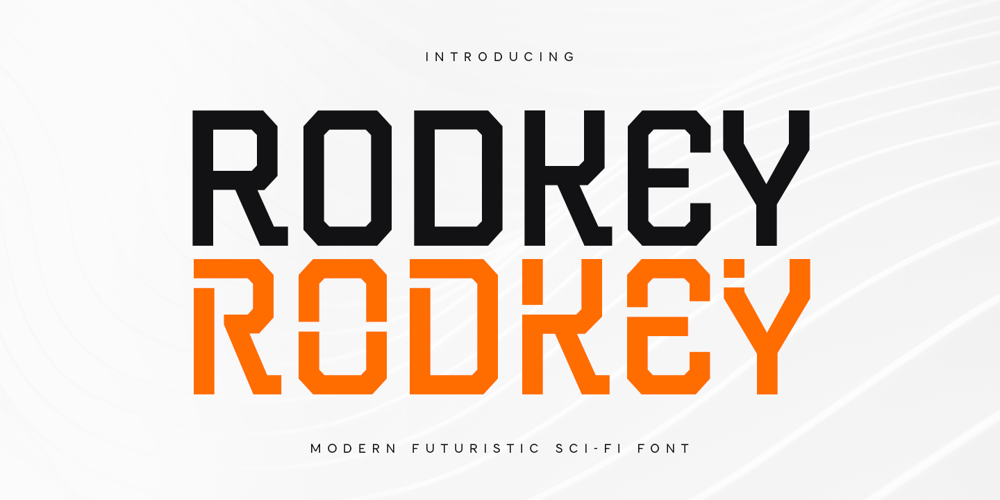
Rodkey Font Family was designed by Zamroni Hamzah and published by Sensatype Studio. Rodkey contains 2 styles and family package options. Rodkey Modern Scifi Futuristic Font is a Modern Futuristic font are prepared special for Technology, Modern, and Futuristic design needs, that created special for Logo, Title and more stand out typography for futuristic and sci-fi. It’s so perfect to add your style and headline overview for technology, film, space, and futuristic theme. And specially for this font, we’ve ready for modern feels so enjoy to create any project that will show your main idea out.Rodkey Modern Scifi Futuristic Font ready with: Ready with Uppercase and Lowercase Characters Include Regular and Stencil Style 4 files format already Preview as a inspirations that you can do with Rodkey font Perfect for Futuristic Sci-fi Design Wish you enjoy our font. ๐